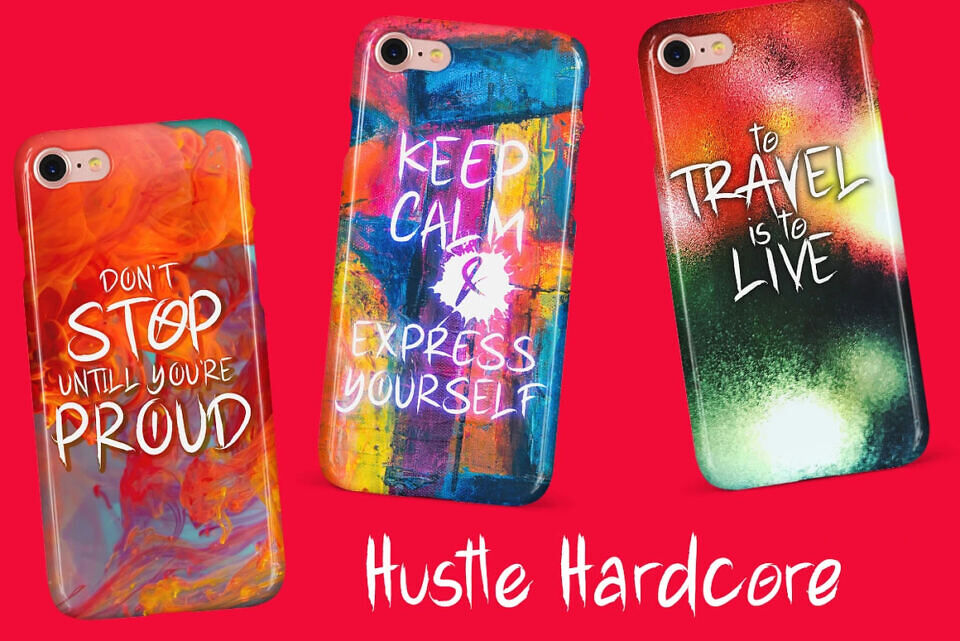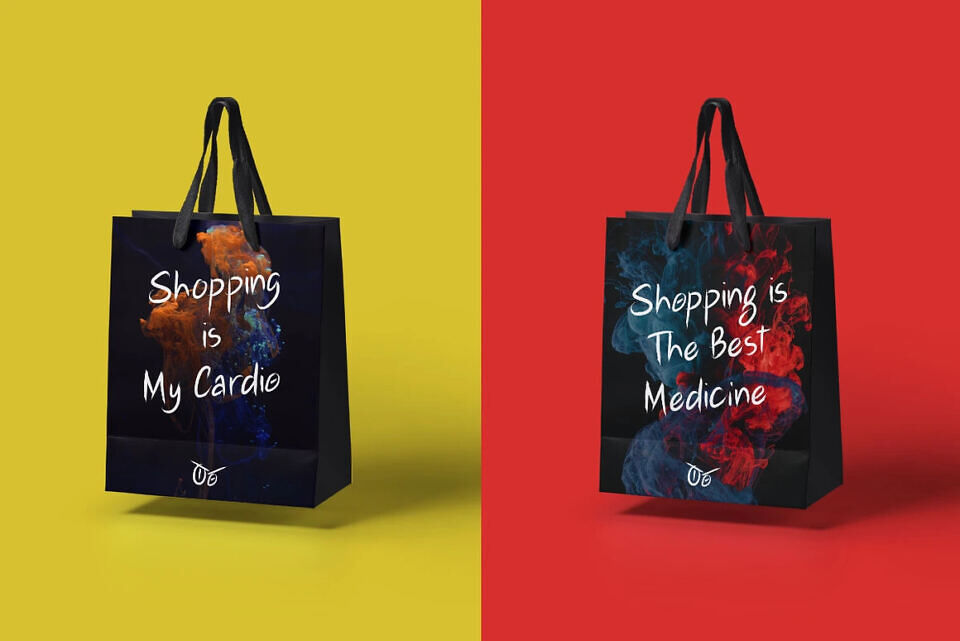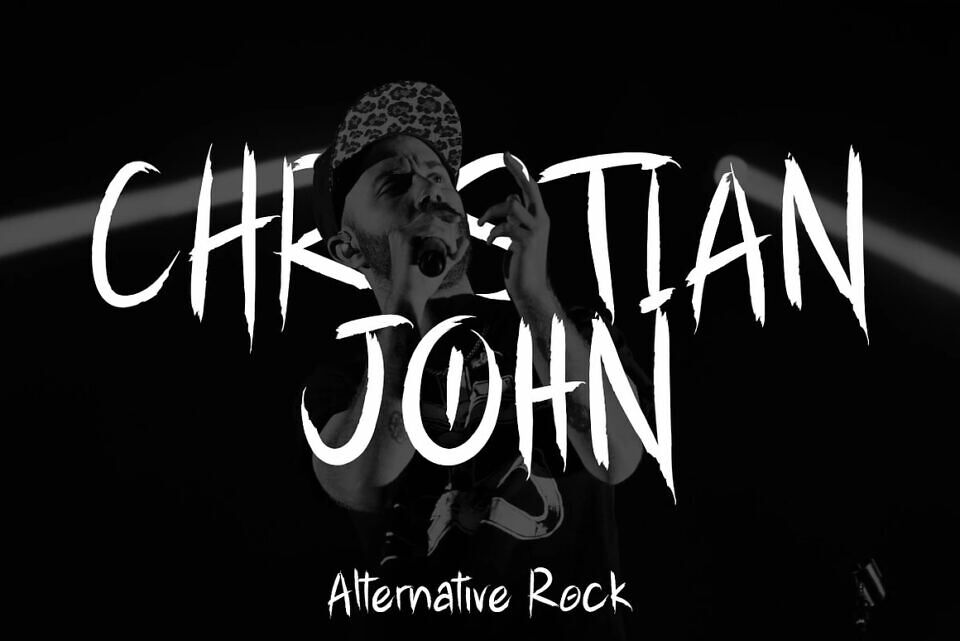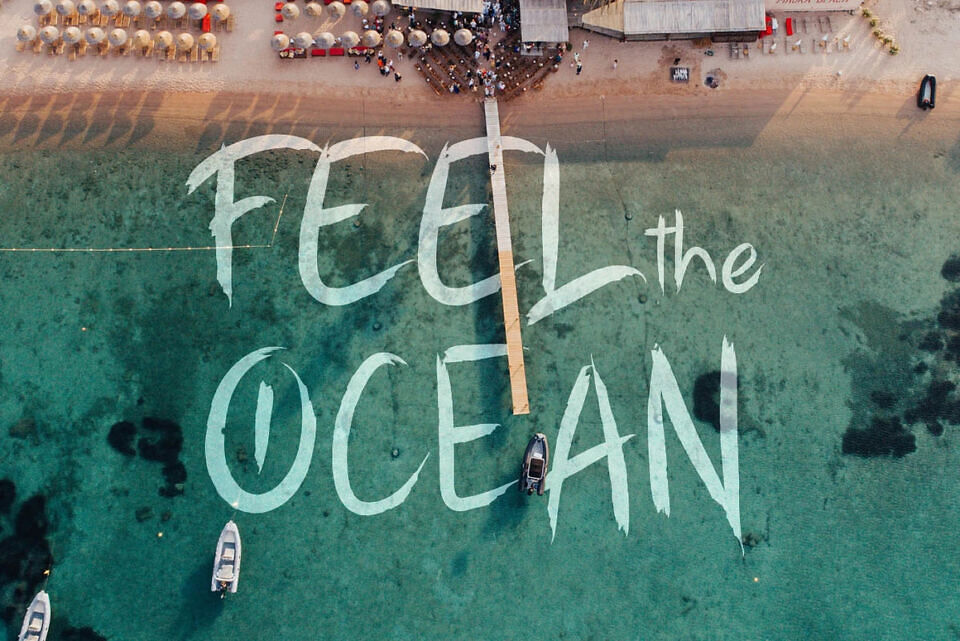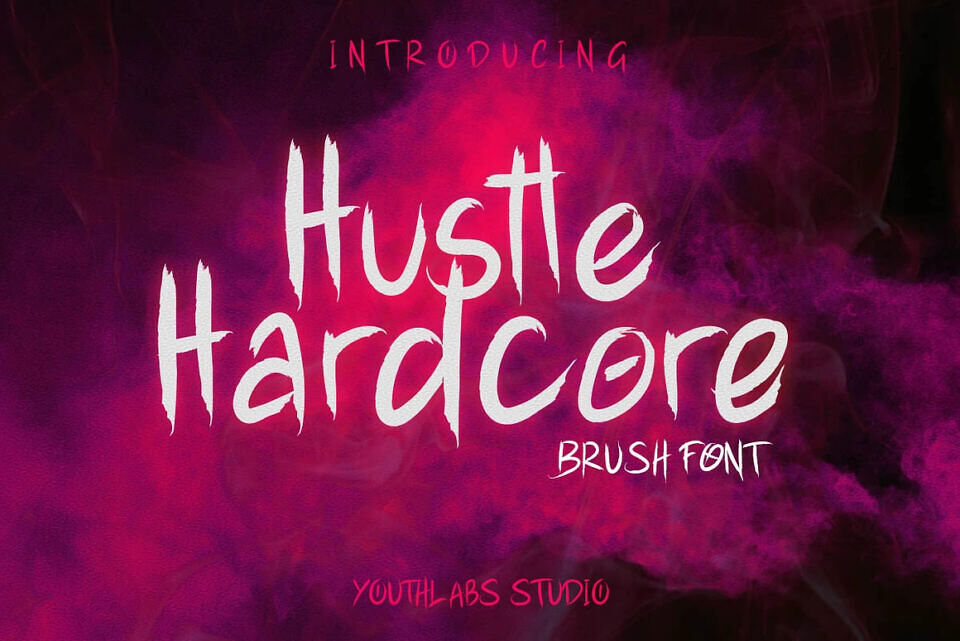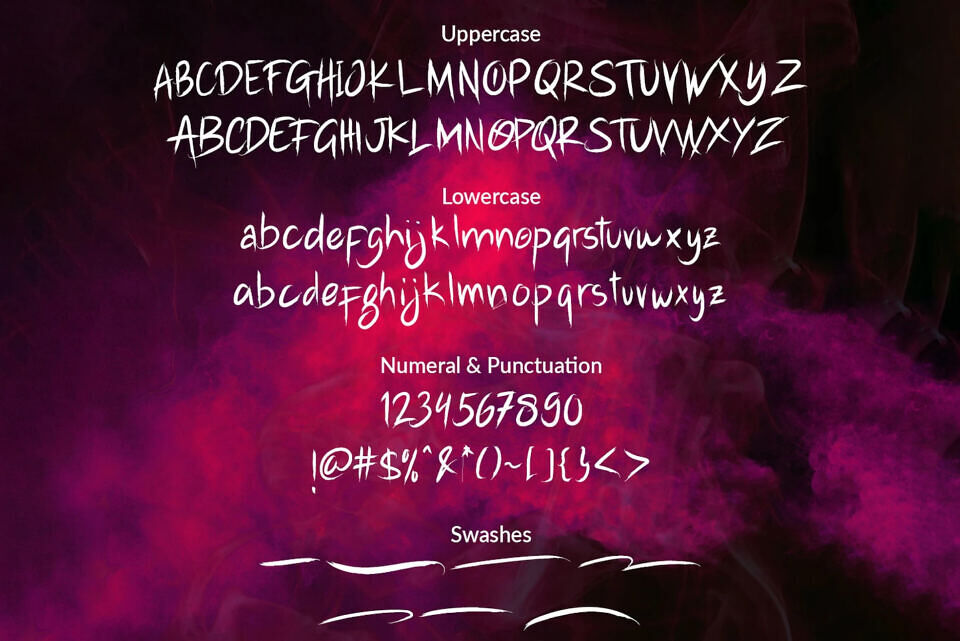
Hustle Hardcore Font
Meet Hustle Hardcore, a bold brush font with edgy strokes. Designed for intense styles like ghothic and metal bands, it’s also versatile enough for other projects, such as cards, apparel, logos, books, and letters, adding a fierce touch to any design.